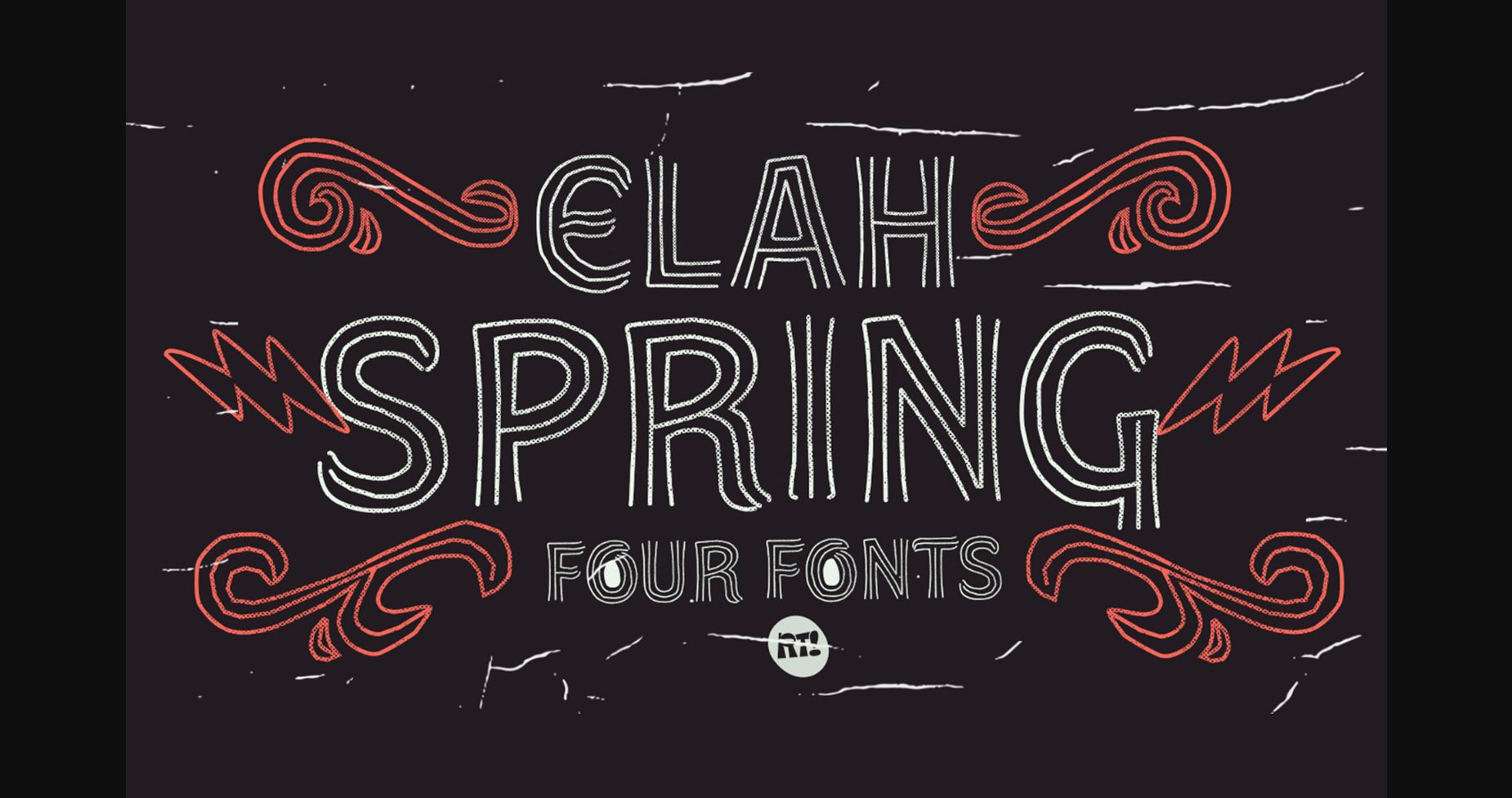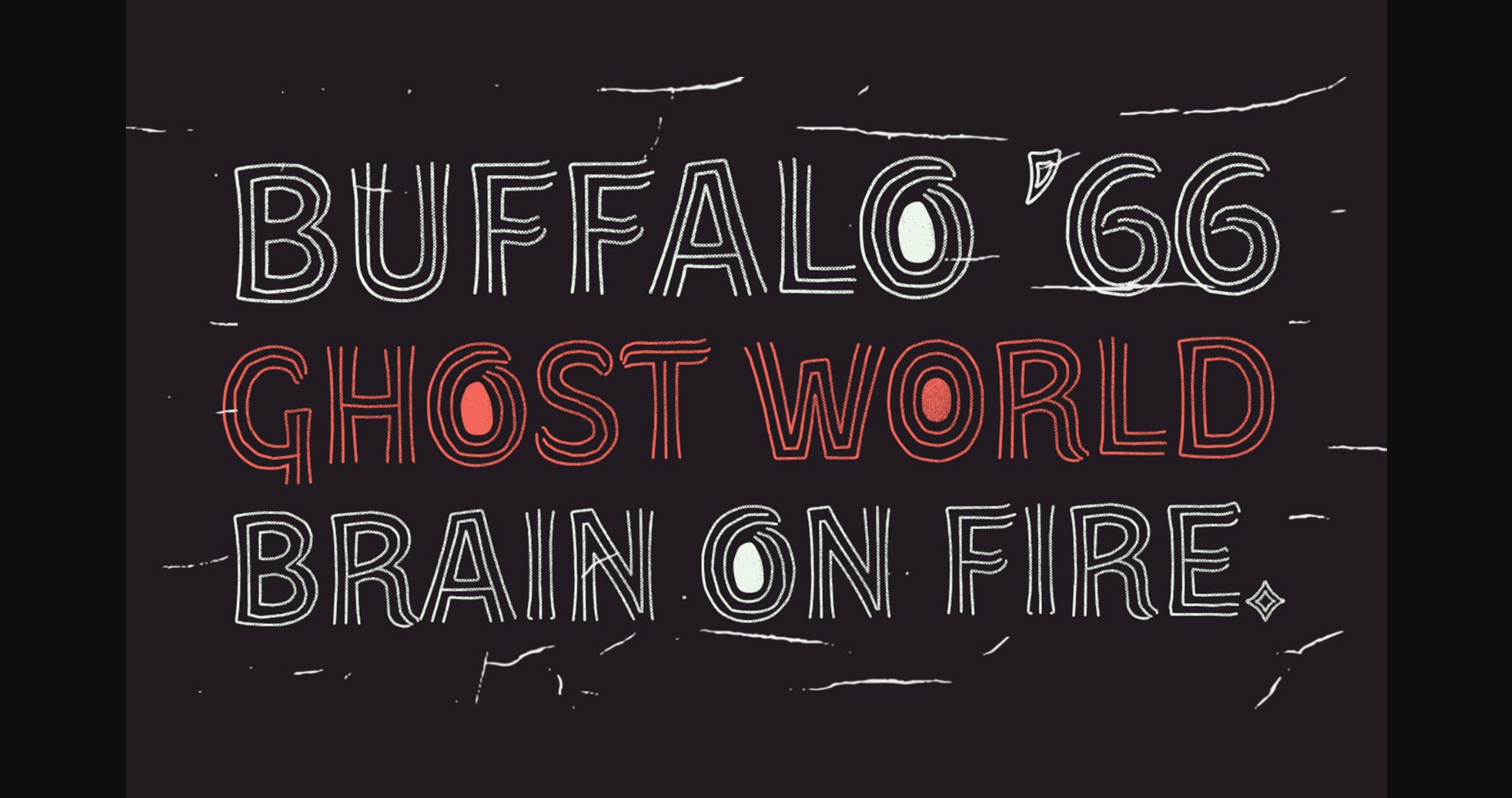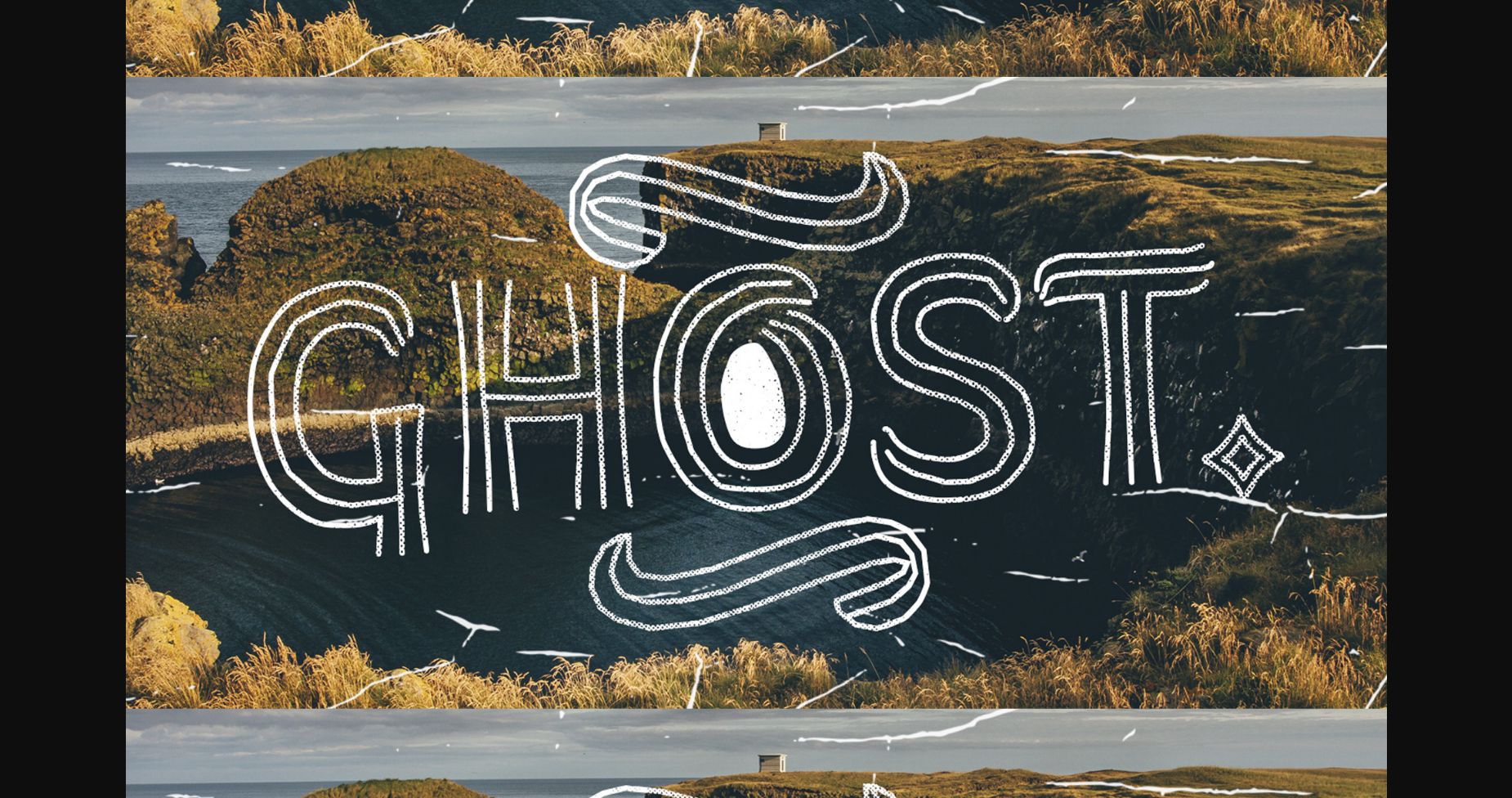
About Elah Spring Font
Elah Spring is a distinctive and unique font with an organic feel and playful character. It’s irregular shapes and quirky details give it a charming feel that sets it apart from traditional typefaces. Elah Spring is perfect for designs that require a touch of creativity and personality, such as branding, packaging, and editorial layouts.